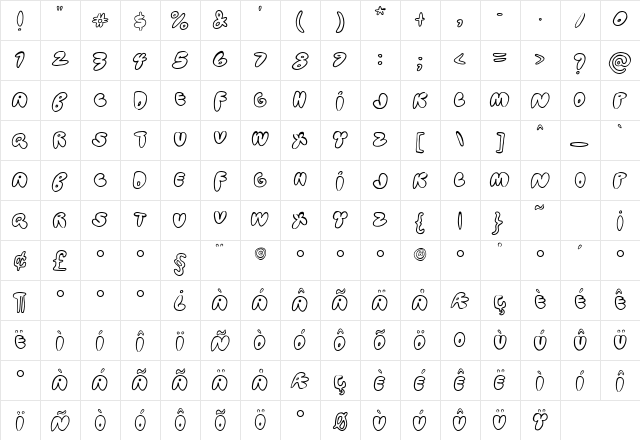
Bubblehouse Medium
Design Context for Bubblehouse Typeface
Bubblehouse has an approachable, lighthearted character — its loose, expressive forms are well-suited to children's content, casual branding, and fun-first design.
Well-suited to food and beverage brands with personality, educational materials, and fun-forward identities.
Font Pairing: Pairs well with a rounded or humanist sans for body copy, maintaining the friendly tone without relying on Bubblehouse to carry extended reading.
Pro Tip: Use Bubblehouse at larger display sizes where its expressive character can land. Pair with a clean, simple sans for body copy to maintain readability.